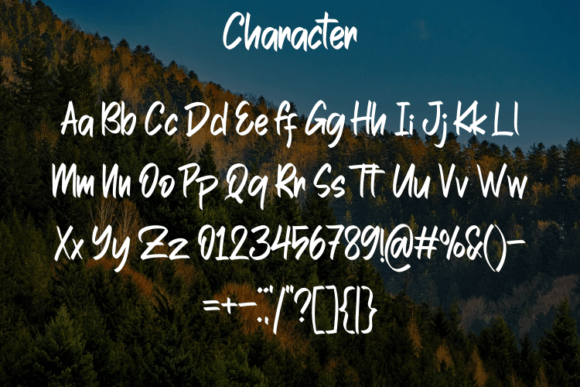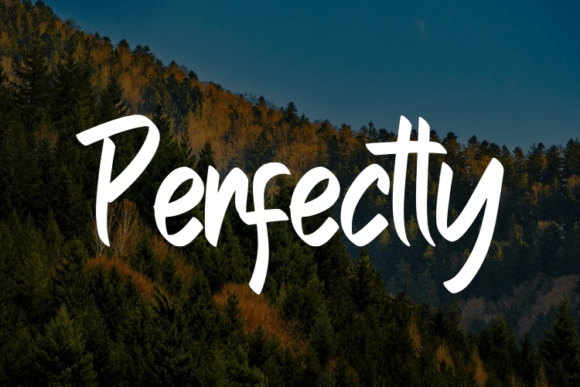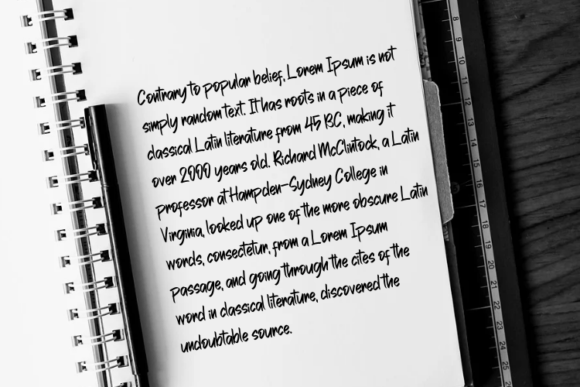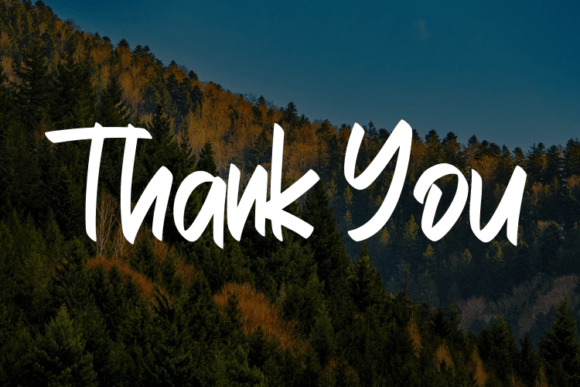
Petrole Font
About Petrole Font
The Petrole Font Download delivers elegance and sophistication in a modern script style. This typeface combines simplicity with refinement, making it an ideal choice for both personal and professional projects. Its stylish flow enhances the beauty of your designs, whether you’re creating branding materials, logos, or high-end product packaging. With its luxurious appeal, Petrole brings a contemporary edge while keeping a timeless charm.
Features of Petrole Font
When you choose the Petrole Font Download, you get access to design features that make it stand out from standard script fonts:
• Modern script style with smooth and balanced strokes
• Elegant letterforms that reflect sophistication and class
• Full character set including uppercase, lowercase, numbers, and punctuation
• Excellent readability across print and digital platforms
These qualities allow Petrole to adapt to a variety of design needs, ensuring it remains a versatile tool in your font collection.
Best Uses for Petrole Font
The Petrole Font Download shines in projects where elegance and creativity intersect. Some of its best applications include:
• Luxury Logos – Ideal for jewelry brands, fashion labels, and upscale boutiques
• Book & Movie Titles – Adds a refined touch to covers and posters
• Fashion Branding – Perfect for magazines, clothing tags, and promotional materials
• Quotes & Typography Prints – Makes inspirational sayings look stylish and classy
• Product Packaging – Enhances labels, cosmetics, and high-end goods
• Wedding Invitations – Provides a romantic yet modern touch for special occasions
Whether used for large titles or small accents, Petrole maintains clarity while delivering visual charm.
Why Designers Choose Petrole Font
Designers prefer the Petrole Font Download because it blends modern aesthetics with timeless elegance. Unlike ordinary script fonts, Petrole carries a sense of exclusivity. Its clean yet expressive strokes make it suitable for luxury-oriented projects while still being versatile enough for everyday design work.
The font pairs well with minimalist sans-serif typefaces, creating a striking balance between modern simplicity and decorative beauty. This makes it especially effective in branding and editorial design.